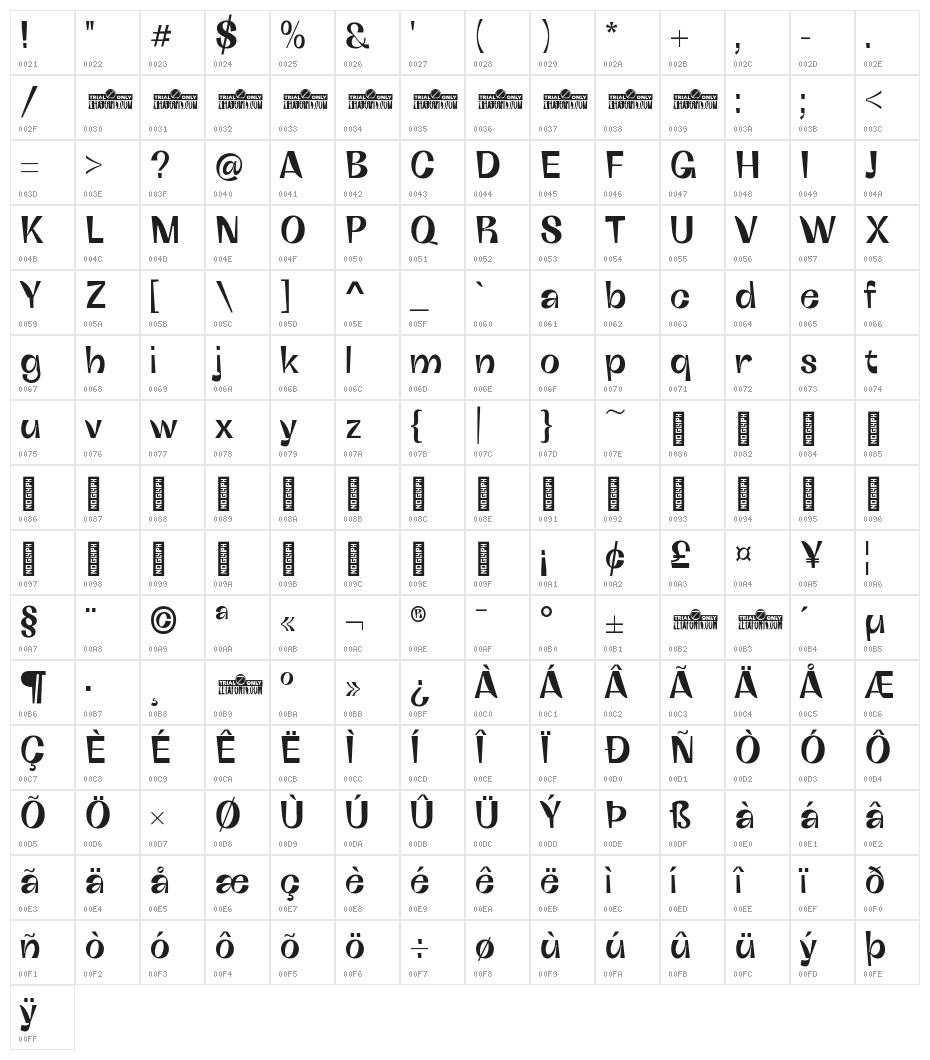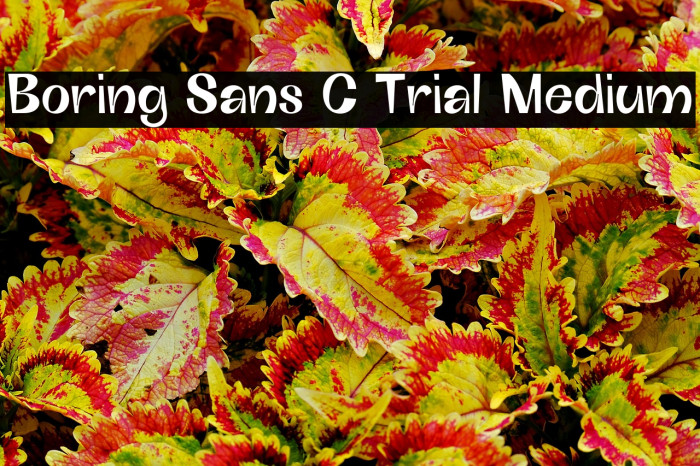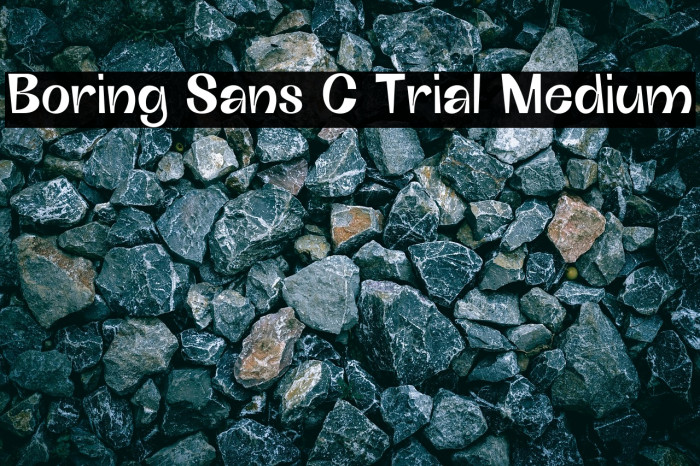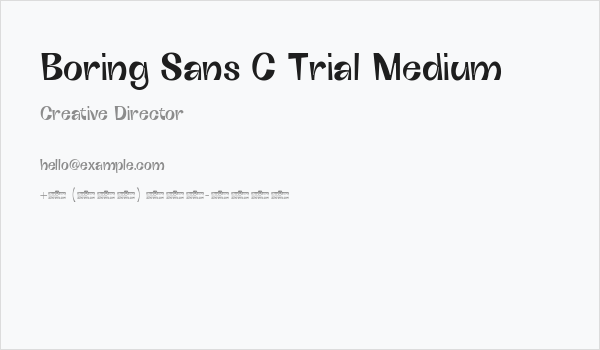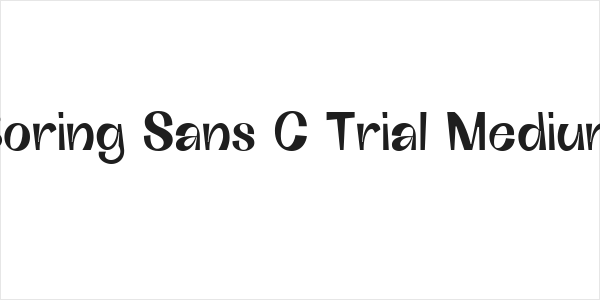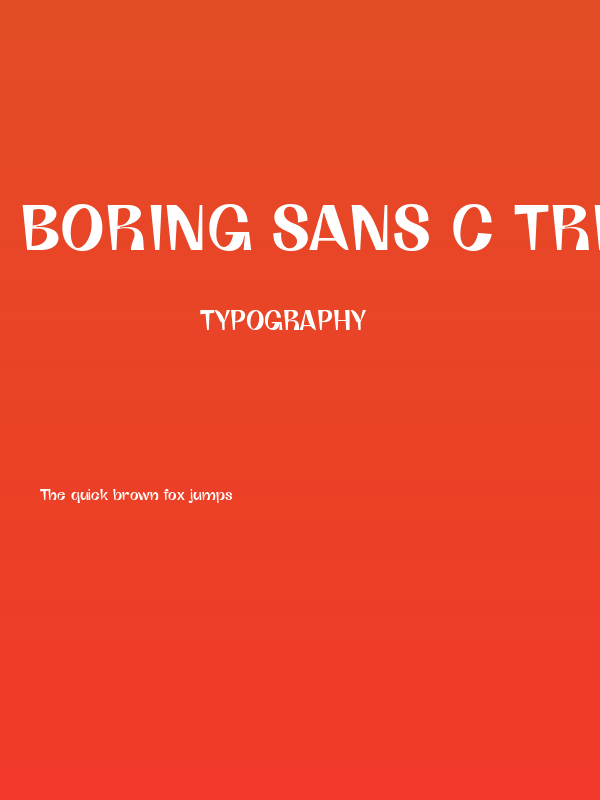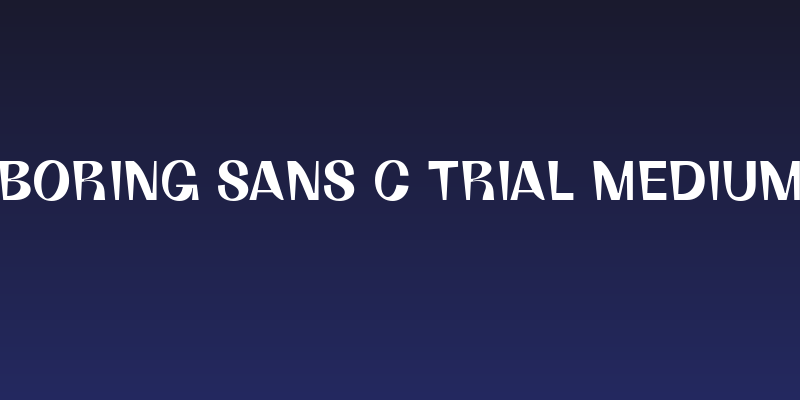
Boring Sans C Trial Medium Font
Boring Sans C Trial Medium Description
This font features a playful and quirky design with a unique twist on traditional sans-serif styles. The characters exhibit a bold and dynamic presence, with exaggerated curves and angles that add a sense of movement and energy. The uppercase letters are particularly striking, with their wide, open forms and distinctive shapes. The lowercase letters maintain a consistent style, offering a harmonious balance between readability and artistic flair. The numerals and special characters are equally expressive, making this font suitable for creative and eye-catching designs.